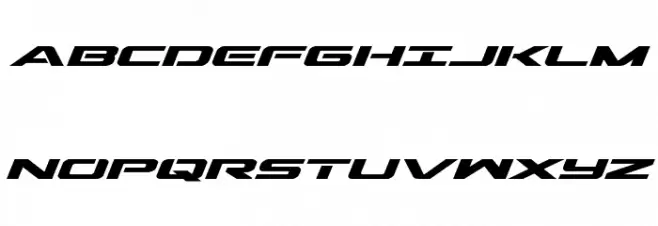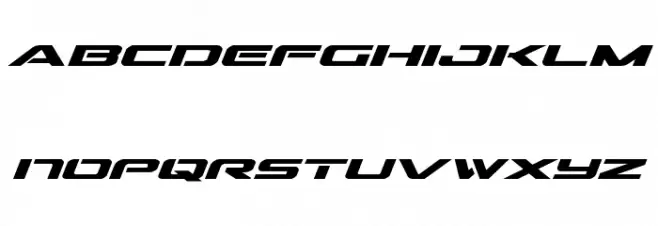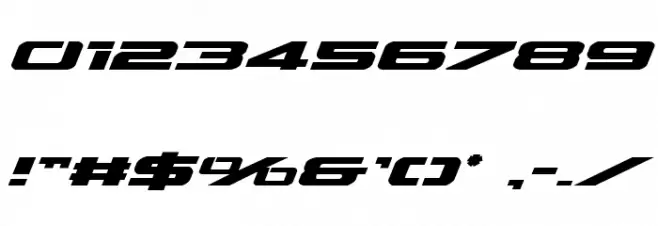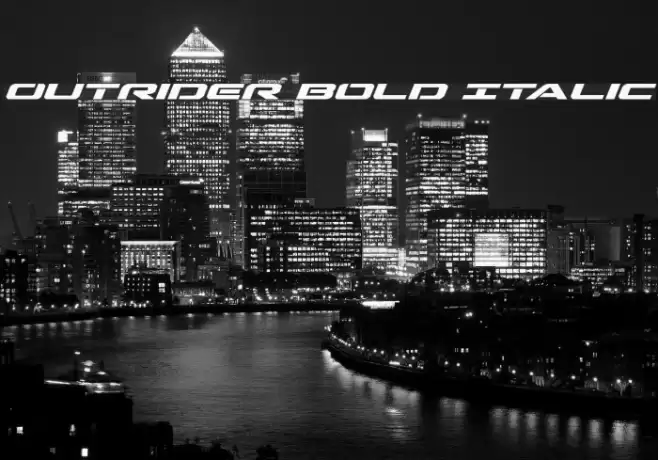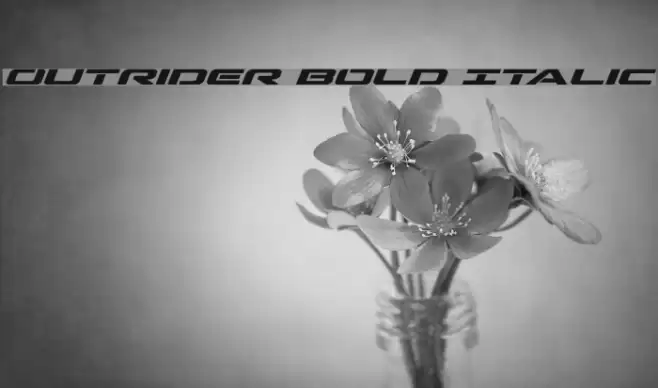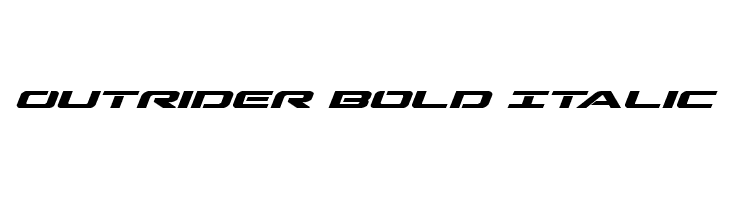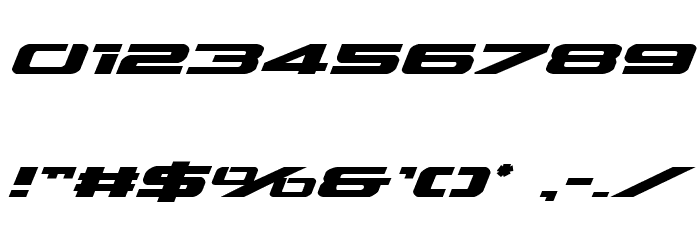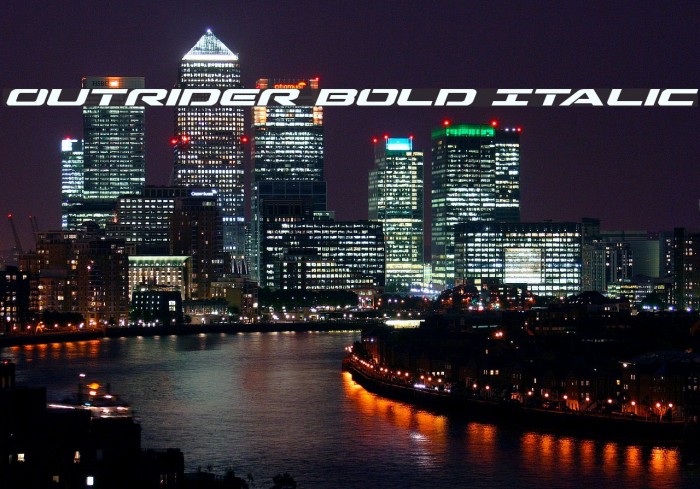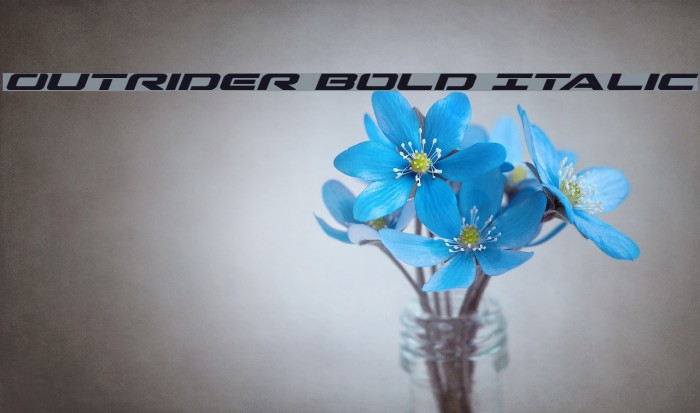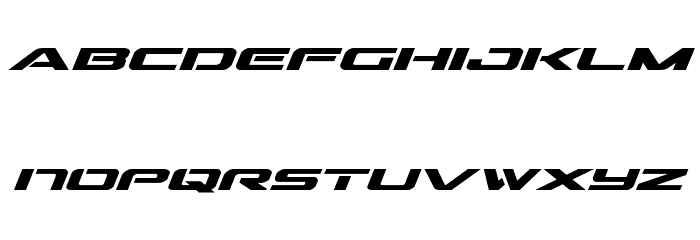
Outrider Bold Italic
This font features a bold and italicized style with a futuristic and dynamic appearance. The characters are sharply angled, giving a sense of speed and motion. The uppercase letters are distinct with a slanted orientation, while the lowercase letters maintain a consistent style that complements the uppercase. The numerals are bold and follow the same angular design, ensuring readability and uniformity. Special characters are included, maintaining the overall aesthetic. The font's design is ideal for projects that require a modern and energetic look.
A bold, italicized font with a futuristic and dynamic style.
- Proposed Projects: Ideal for sports branding, automotive designs, video game titles, and tech-related projects.